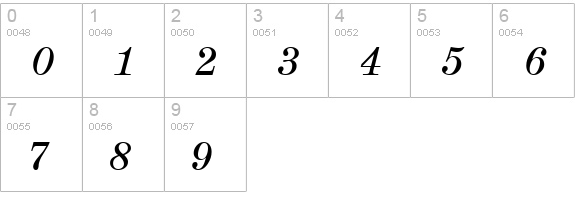
A850-Roman-Italic Font Details
A850-Roman-Italic is a distinctive, italic variant in the A850 typeface family \xE2\x80\x94 well suited to design and typography projects.
The A850-Roman-Italic font is a classic and elegant typeface that exudes sophistication and charm. Its sleek and slanted design adds a touch of refinement to any project, making it perfect for use in branding, editorial design, and more. The graceful curves and clean lines of this font give it a timeless appeal that is sure to impress. Best of all, the A850-Roman-Italic font is completely free to download at FontsMarket.com. This means you can add a touch of luxury to your designs without breaking the bank. Don't miss out on this fantastic opportunity to enhance your projects with a high-quality font that is both stylish and versatile. Download the A850-Roman-Italic font today and elevate your designs to the next level!